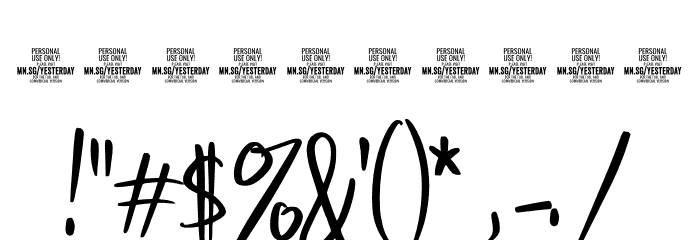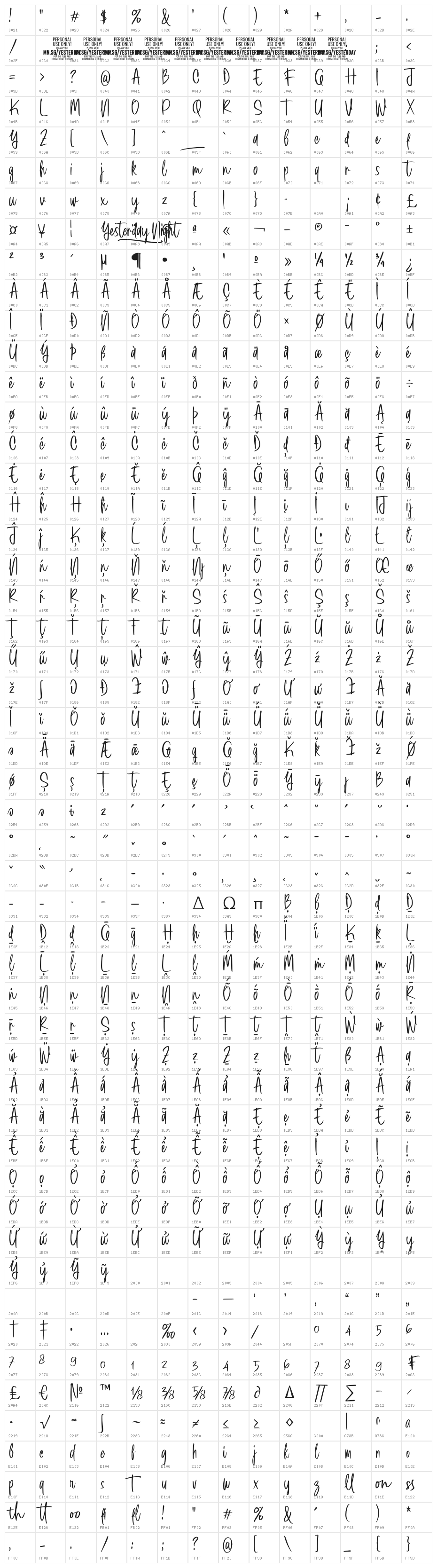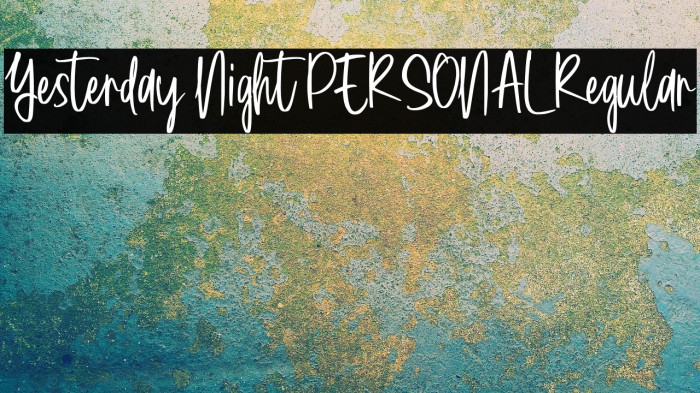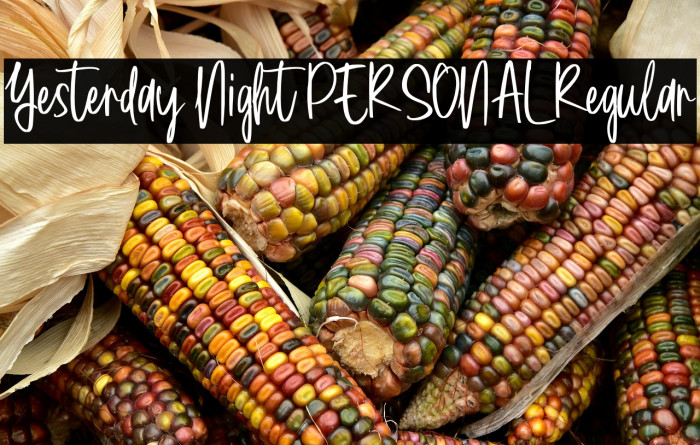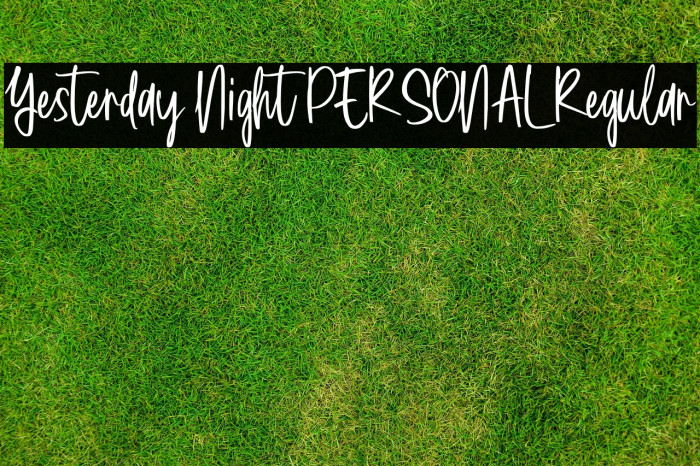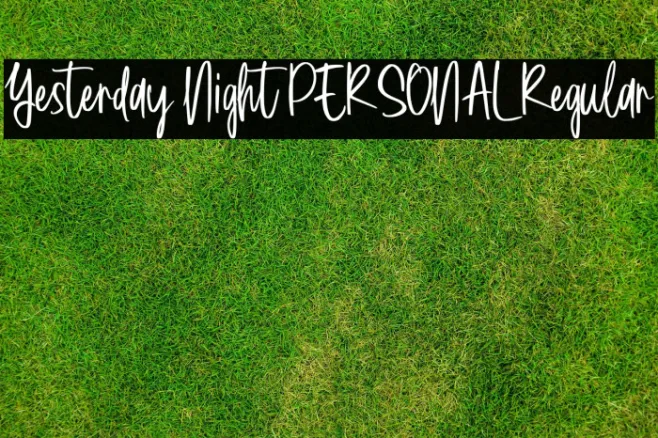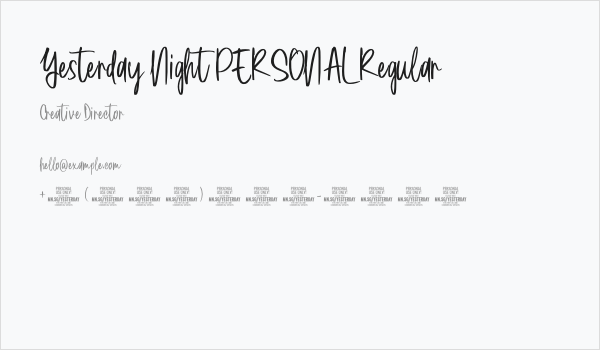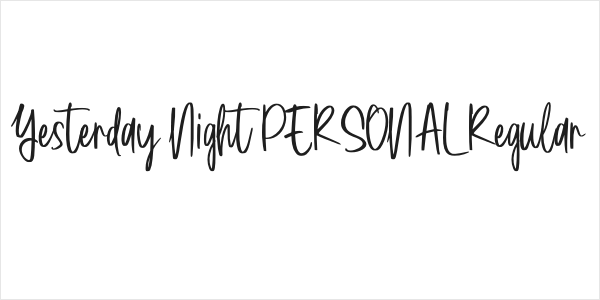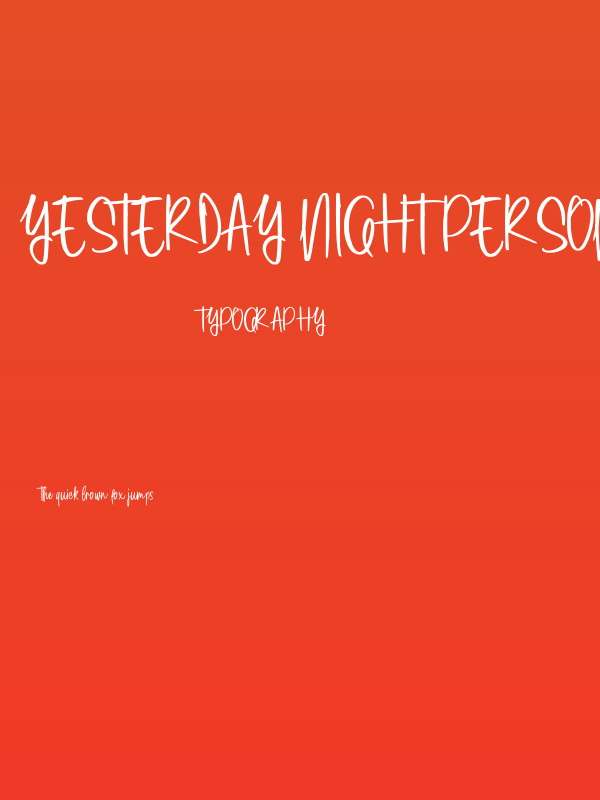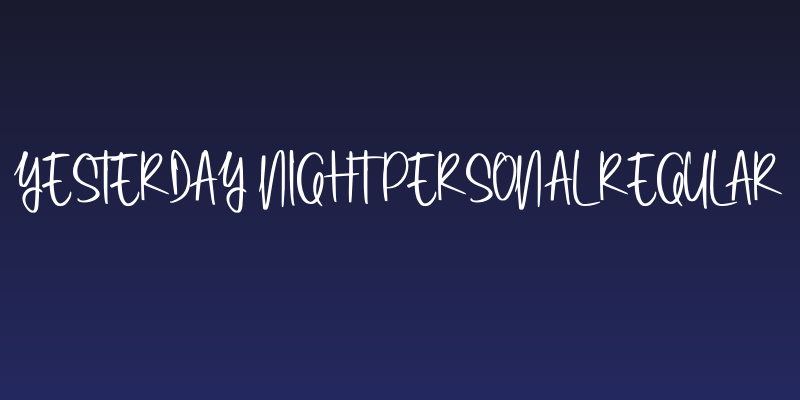
Yesterday Night PERSONAL Regular Font
Yesterday Night PERSONAL Regular Description
This font features a playful and energetic handwritten style with a casual flair. The letters are tall and slightly narrow, with a consistent stroke width that gives it a cohesive look. The uppercase letters are bold and dynamic, while the lowercase letters have a more fluid and cursive appearance, adding to the font's charm. The numbers and special characters maintain the same lively aesthetic, making it versatile for various uses. Its informal and friendly nature makes it ideal for creative projects that require a personal touch.
| Use Case | Logos, Headlines, Social Media |
| Proposed Projects | Ideal for greeting cards, invitations, posters, and social media graphics. |